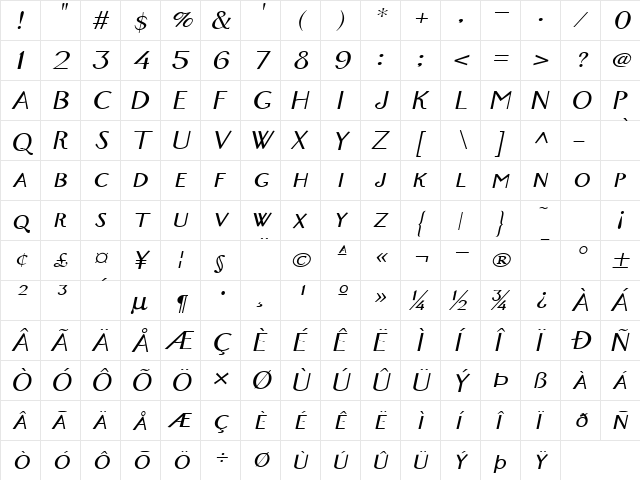
New-York-Extended Italic Font Preview
New-York-Extended Italic
Design Context for New-York-Extended Typeface
New-York-Extended offers clean, dependable letterforms without strong stylistic allegiance, making it a practical choice for designers who need flexibility. The slanted form adds forward momentum and visual energy.